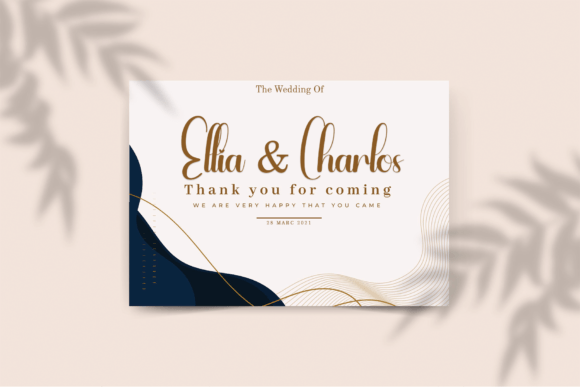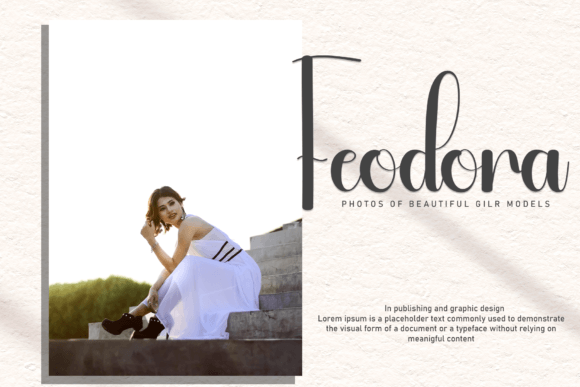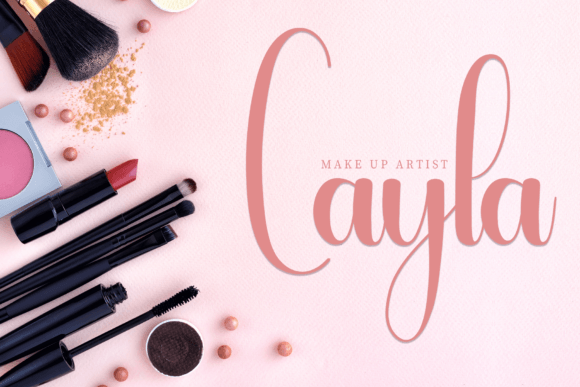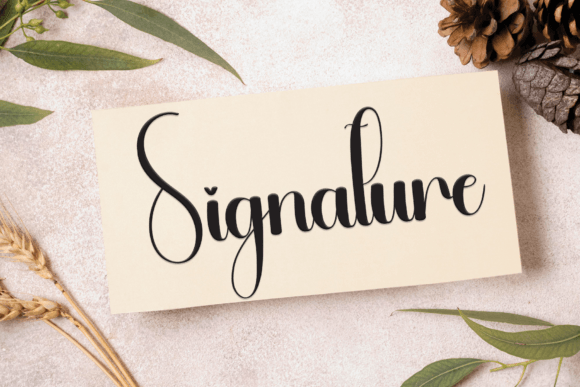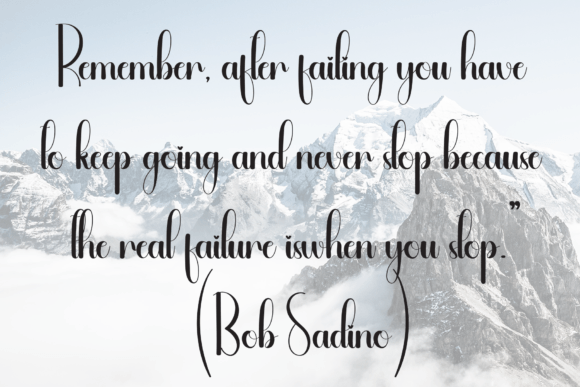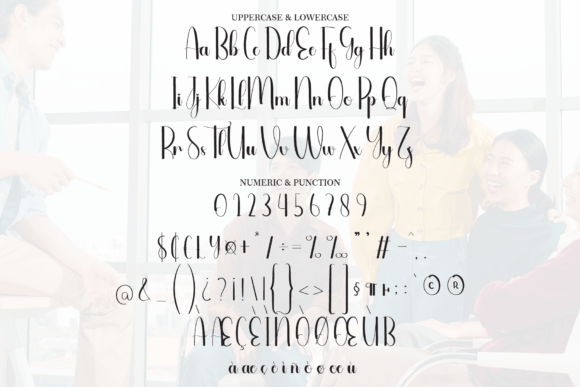
Introducing Community Font: The Sweet and Friendly Handwritten Font for Your Creative Projects
Are you a designer or crafter looking for a font that adds a personal touch to your work? Look no further than Community Font, a sweet and friendly handwritten font that’s perfect for a variety of creative projects. In this article, we’ll explore the features and benefits of Community Font, and show you how it can elevate your designs to the next level.
What is Community Font?
Community Font is a beautifully crafted handwritten font that’s fresh, neat, and full of character. Its unique and playful style makes it an ideal choice for adding a fun touch to your designs. Whether you’re creating wedding invitations, greeting cards, or social media graphics, Community Font is the perfect choice for designers and crafters who want to add a personal and whimsical touch to their work.
Key Features of Community Font
- Handwritten style: Community Font has a beautiful, handwritten style that’s perfect for creating personal and unique designs.
- Fresh and neat: The font is clean and easy to read, making it perfect for body text and headings.
- Fun and playful: Community Font has a playful and whimsical feel that’s perfect for adding a touch of personality to your designs.
- Versatile: This font can be used for a wide range of creative projects, from wedding invitations to social media graphics.
Use Cases for Community Font
Community Font is a versatile font that can be used for a wide range of creative projects. Here are some use cases to get you started:
- Wedding Invitations: Add a personal touch to your wedding invitations with Community Font. Its elegant and playful style makes it perfect for formal and informal wedding invitations.
- Greeting Cards: Create beautiful and unique greeting cards for birthdays, holidays, and special occasions with Community Font.
- Social Media Graphics: Use Community Font to create eye-catching social media graphics that stand out from the crowd.
- Branding and Packaging: Add a personal touch to your branding and packaging with Community Font. Its unique style makes it perfect for creating custom logos, labels, and packaging.
Benefits of Using Community Font
There are many benefits to using Community Font in your creative projects. Here are a few:
- Unique and Personal: Community Font adds a unique and personal touch to your designs, making them stand out from the crowd.
- Easy to Read: The font is clean and easy to read, making it perfect for body text and headings.
- Versatile: Community Font can be used for a wide range of creative projects, from wedding invitations to social media graphics.
- Time-Saving: With Community Font, you can create beautiful and unique designs in no time.
Tips for Using Community Font
Here are some tips for using Community Font in your creative projects:
- Pair it with Other Fonts: Community Font pairs well with other fonts, so don’t be afraid to experiment with different combinations.
- Use it for Headings and Body Text: Community Font is perfect for both headings and body text, making it a great choice for creating cohesive designs.
- Experiment with Colors: Community Font looks great in a variety of colors, so don’t be afraid to experiment with different color schemes.
Community Font is a sweet and friendly handwritten font that’s perfect for designers and crafters who want to add a personal touch to their creative projects. With its unique and playful style, Community Font is ideal for a wide range of creative projects, from wedding invitations to social media graphics. So why wait? Download Community Font today and start creating beautiful and unique designs that stand out from the crowd!